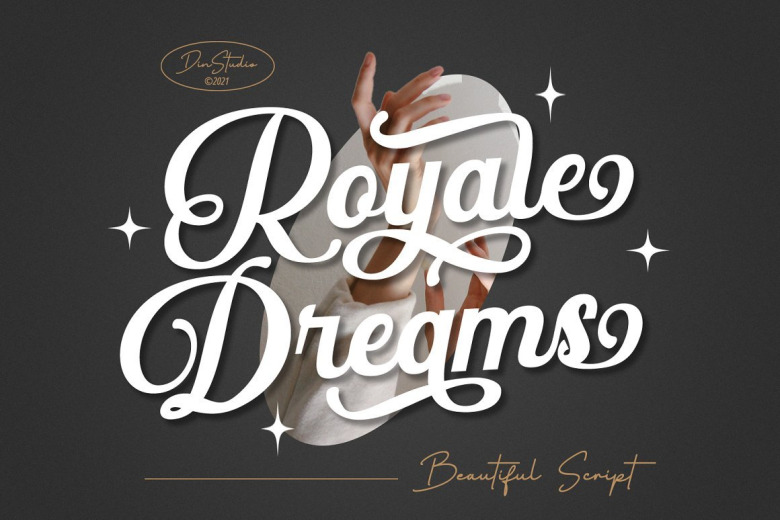
Royale Dreams Font
Royale Dreams is a elegant script typeface. Designed primarily as a captivating handcrafted with style. This typeface that is easy on the eyes font that excels at captivating headlines, or large branding text, the font oozes that cute aesthetic that just makes you go “aww!”